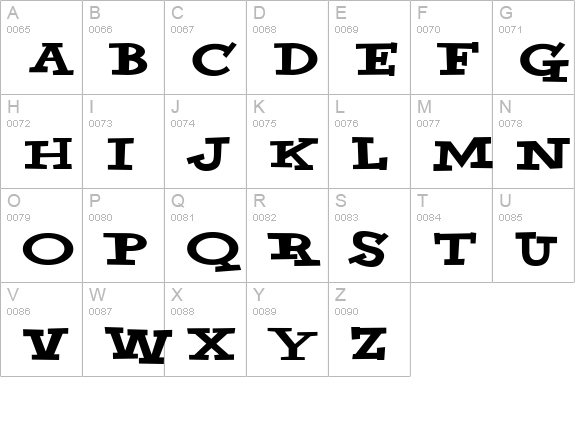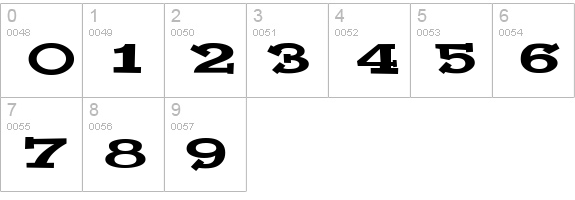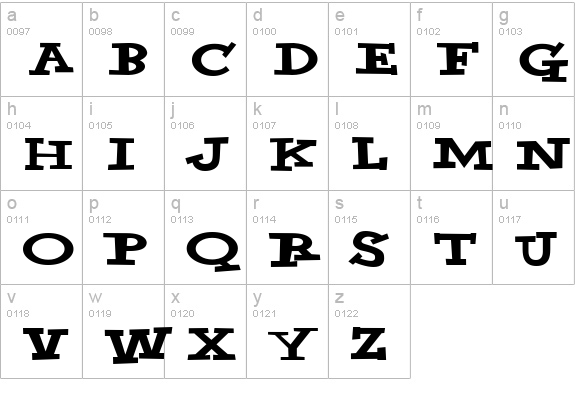
Yahoo font is a stunning and versatile typeface that embodies the essence of the iconic Yahoo brand. With its contemporary yet timeless design, this font captures the spirit of innovation, creativity, and forward-thinking that Yahoo has come to represent. Featuring clean lines, smooth curves, and a balanced lettering style, Yahoo font is visually appealing and easy to read, making it perfect for a wide range of design projects. Whether you're creating a website, designing a logo, or crafting a print advertisement, this font will elevate your work to new heights. One of the best aspects of Yahoo font is that it is freely available to download at FontsMarket.com. This means that you can easily access and use this incredible typeface without any restrictions or limitations. Whether you're a professional graphic designer or a hobbyist, you can unleash your creativity and bring your ideas to life with this captivating font. With Yahoo font, you can add a touch of sophistication and elegance to your designs. Its versatility allows it to adapt to various styles and themes, making it suitable for both modern and classic projects. The attention to detail and craftsmanship behind this font truly sets it apart from the rest. So, why settle for ordinary when you can have extraordinary? Download Yahoo font from FontsMarket.com today and embark on a creative journey like no other. Unleash your imagination, captivate your audience, and make a lasting impression with this remarkable and freely available typeface.